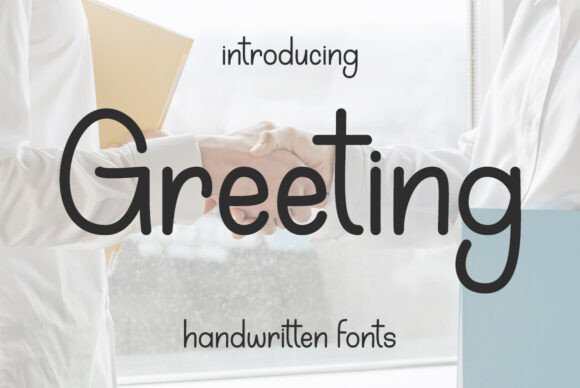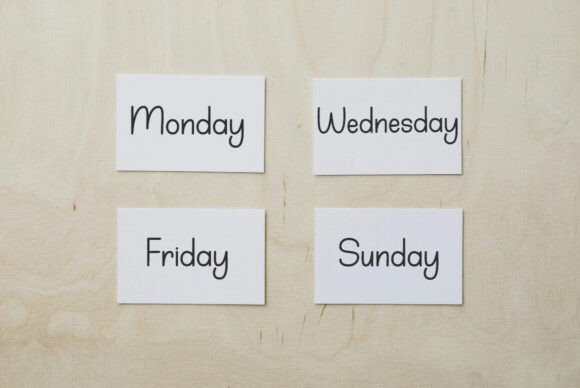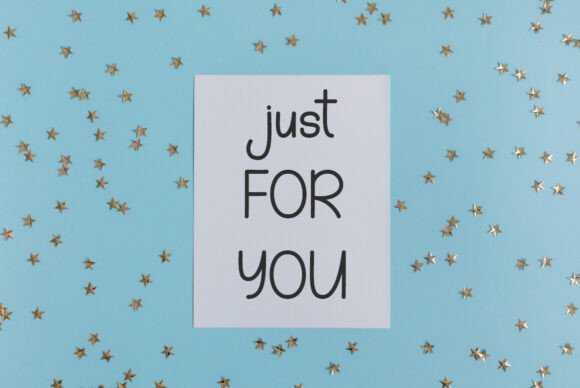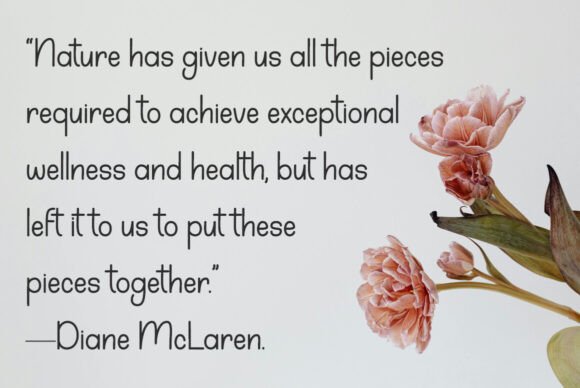
Greeting Font: Cute Handwritten Typography for Invitations & Cards
About the Greeting Font
Meet Greeting Font, a stunning font that brings a touch of elegance and professionalism to any design. Experience the captivating allure of ‘Greeting,’ a hand-crafted font that bares an undeniable charm. Personified with a sweet, affable character, ‘Greeting’ infuses vivacity into any design construct. It’s a perfect fit for sophisticated wedding invites, emotive cards, or designs requiring a touch of playful elegance. Uniqueness is the essence of ‘Greeting’; every letter portrays a distinct personality, ensuring your creative endeavors are always one-of-a-kind and bewitching.
Greeting’s playful elegance makes it ideal for projects requiring a touch of whimsy and sophistication, such as branding for boutiques, cafes, or artisan products. It excels in short headlines, logos, and packaging design where its unique character shines. However, its decorative nature makes it less suitable for body text or UI elements requiring high readability.
Consider pairing Greeting with a clean sans-serif like Lato for a balanced contrast, or a delicate script font like Great Vibes for a more romantic feel. For a modern twist, a geometric sans-serif such as Montserrat could provide a strong counterpoint.
Greeting’s core personality is friendly and approachable, yet refined. It’s best suited for brands that want to convey a sense of handcrafted quality and charming individuality.